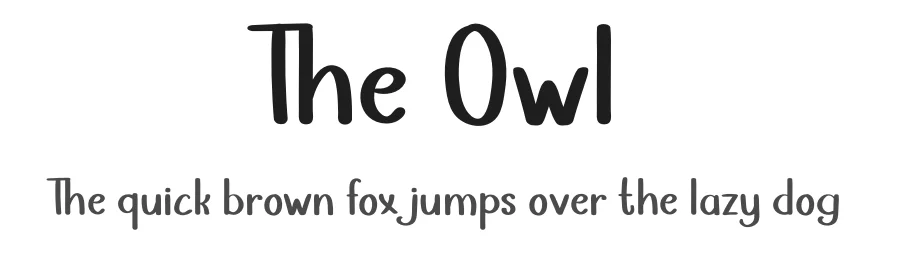
About De La Rocha Font
| Designer | Purnomo, Taufik Dwi @ Nariswari |
De La Rocha Font is a script font that shines as a display or heading face. Pair it with a clean sans-serif or serif font for body text β the contrast creates a clear hierarchy while the two styles stay balanced and easy to read.